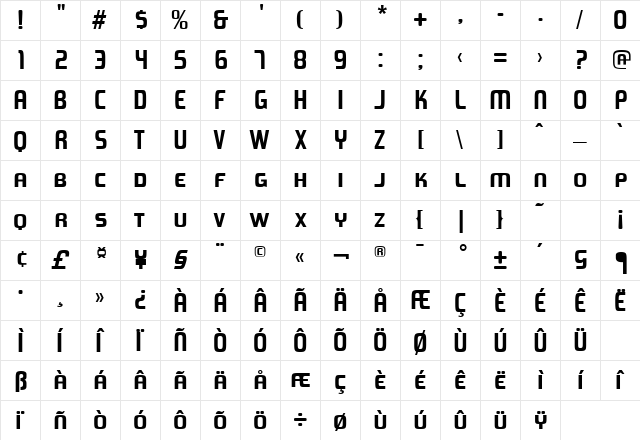
76London Regular
Design Context for 76London Typeface
76London is a composed and adaptable typeface that performs quietly and consistently across a wide range of design contexts.